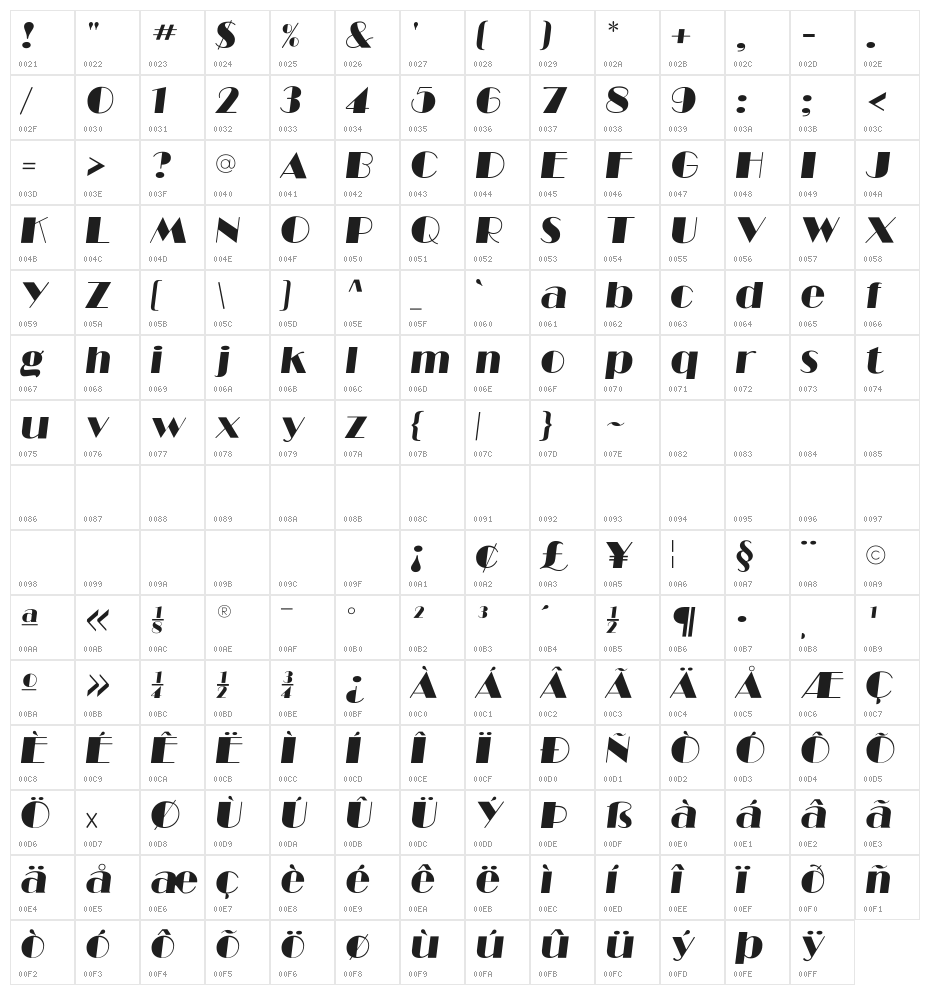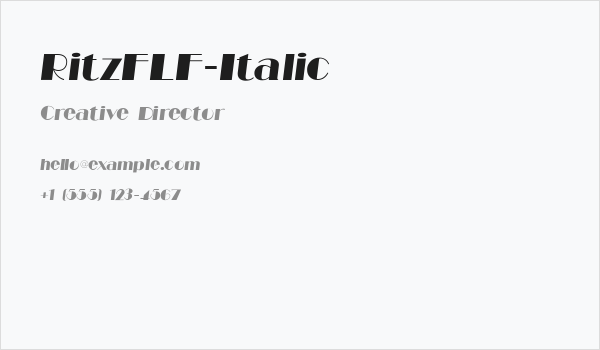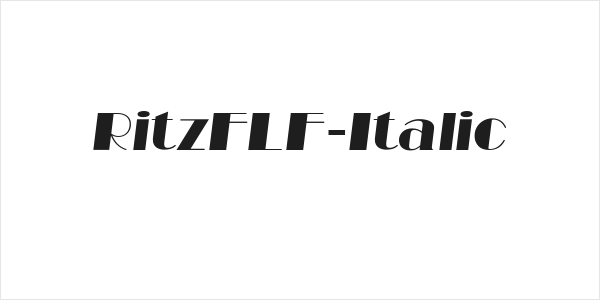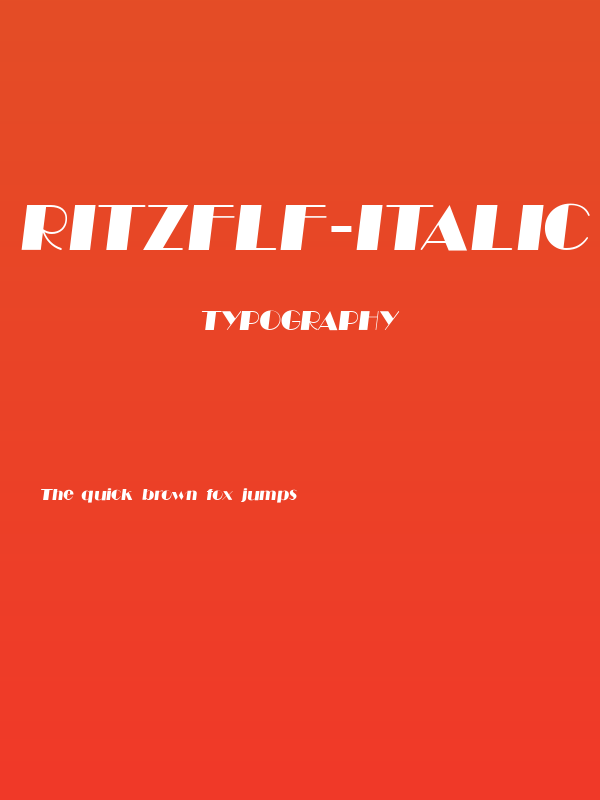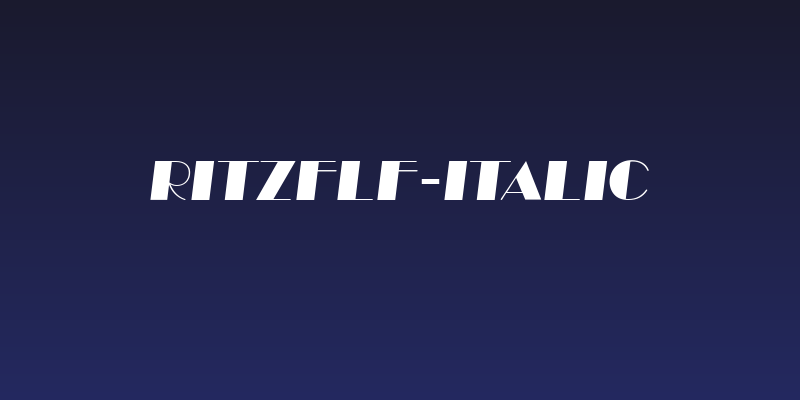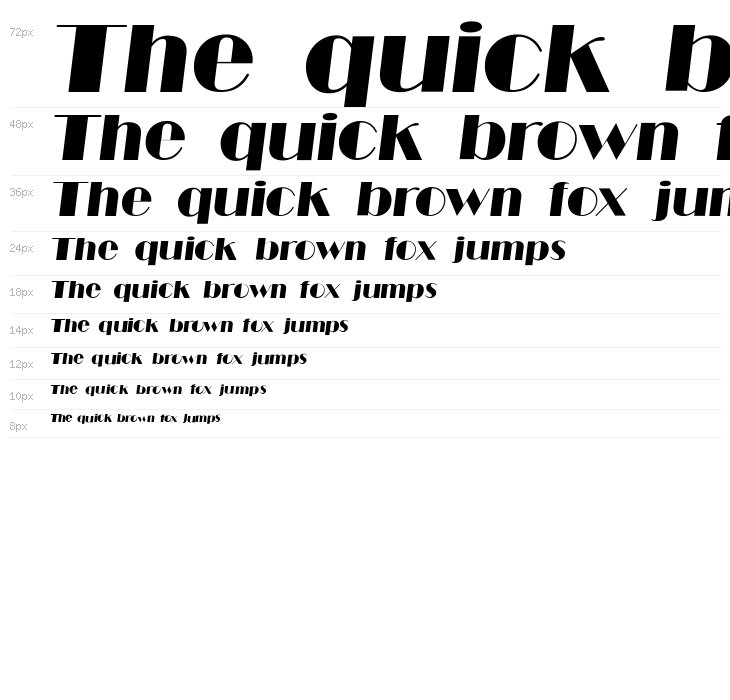
RitzFLF-Italic Font
RitzFLF-Italic Description
This font exhibits a bold and dynamic style with a distinct italic slant, giving it a sense of movement and elegance. The uppercase letters are characterized by sharp angles and clean lines, while the lowercase letters maintain a consistent flow with subtle curves. The numerals are bold and prominent, ensuring readability. Special characters are designed with the same attention to detail, making them cohesive with the overall aesthetic. The font's unique style is suitable for making a strong visual impact, whether in print or digital formats.